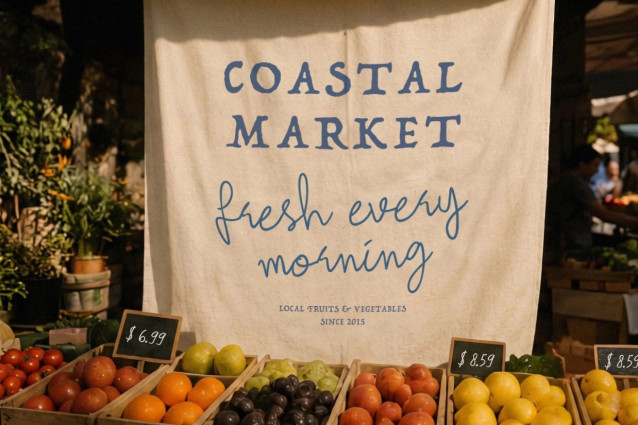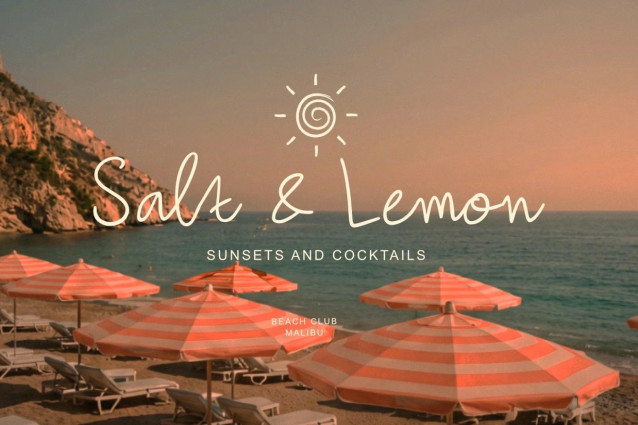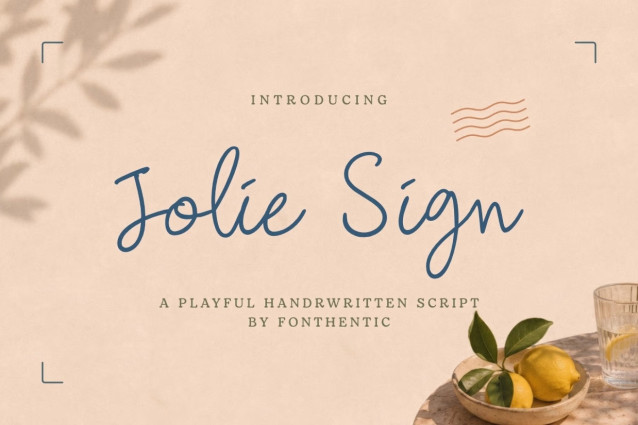
Jolie Sign Font
Jolie Sign is a handwritten script font inspired by the relaxed elegance of handwritten notes, travel journals, and artisan packaging. Its monoline construction, tall ascenders, open counters, and intentionally uneven rhythm create an authentic handwritten appearance without sacrificing readability. The letterforms feel spontaneous yet controlled, balancing casual movement with clean proportions. Distinctive loops, elongated strokes, and soft terminals give the font a warm, personal voice, while included ligatures help smooth character transitions for more natural-looking word shapes and improved visual flow.
Designed for brands that value authenticity over perfection, Jolie Sign brings a handcrafted touch to packaging, logos, product labels, café branding, beauty products, lifestyle goods, travel-inspired projects, and social media content. Its approachable character is especially effective for Mediterranean-inspired, artisan, organic, and boutique branding where a p